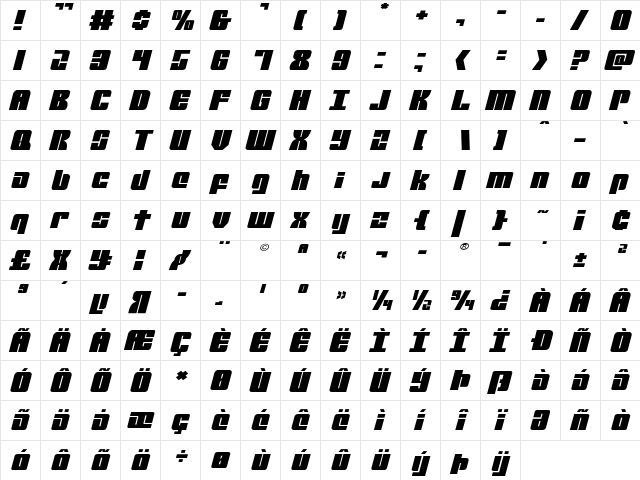
Mobile Infantry Expanded Italic Expanded Italic
Design Context for Mobile Infantry Expanded Italic Typeface
Mobile Infantry Expanded Italic offers clean, dependable letterforms without strong stylistic allegiance, making it a practical choice for designers who need flexibility. The dynamic lean of this cut emphasises speed and emphasis in any layout.
Pro Tip: Use Mobile Infantry Expanded Italic for emphasis, pull quotes, and subheadings where its slanted energy can add rhythm to the layout.